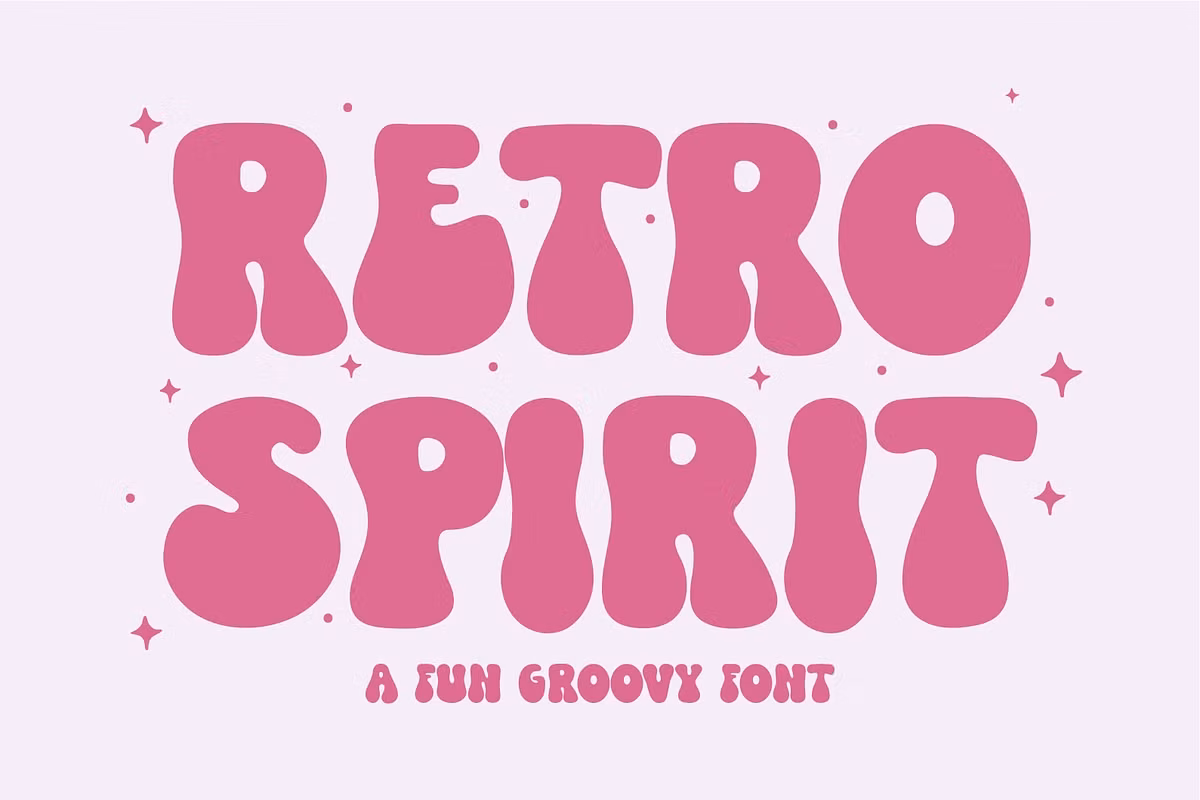
Please note that you must purchase this font for commercial use. You can download Retro Spirit – A Fun Groovy Font for free, strictly for personal testing purposes only. Retro Spirit is a playful, bold, and fun groovy font inspired by the 60s and 70s retro vibes. With its rounded, funky letterforms and energetic style, Retro Spirit Font Free Download is perfect for creating vintage-inspired designs, logos, posters, t-shirt graphics, and branding that require a fun, nostalgic look.
The font captures the essence of classic groovy typography, making it ideal for projects related to music, festivals, retro products, and social media content. It includes uppercase and lowercase letters, numerals, punctuation, and multilingual support for versatility in a variety of design applications.
Whether you're designing a psychedelic poster, a funky brand, or retro-themed social media content, Retro Spirit adds a vibrant, nostalgic feel to your typography.